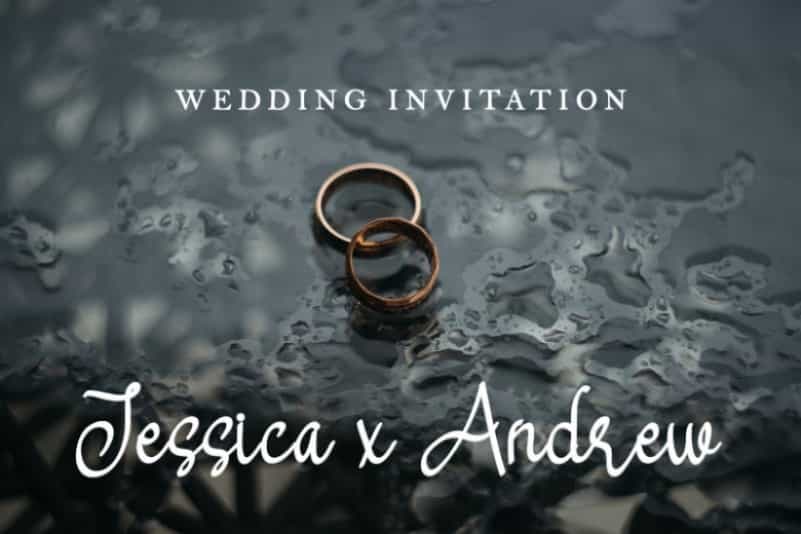
Starglass Font is a handwritten calligraphy modern font that has a touch of elegance, class, and natural flow. Starglass is suitable for branding purposes, logos, weddings, social media, advertisements, packaging, products, labels, photos, watermarks, invitations, stationery, and any project requiring handwriting flair.